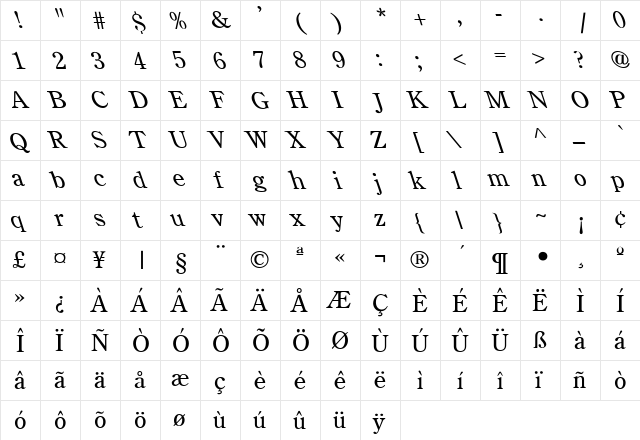
Century Old Style Lefty Regular Font Preview
Century Old Style Lefty Regular
Design Context for Century Old Style Lefty Typeface
Century Old Style Lefty offers clean, dependable letterforms without strong stylistic allegiance, making it a practical choice for designers who need flexibility.